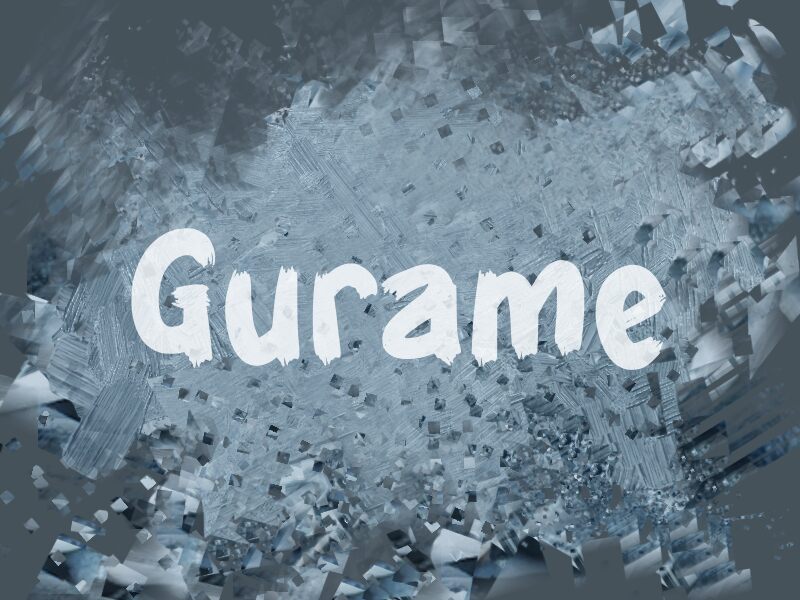
Gurame
Gurame, designed by wep, captures attention with its bold, brush-stroke style that exudes energy and creativity. The dynamic strokes create a sense of movement, adding an element of liveliness and personality to any design. Its strikingly thick lines are perfect for making a bold statement in headlines, posters, or logos.
Ideal for projects seeking a handcrafted feel, Gurame thrives where authenticity and expressiveness are paramount. It's equally at home in artistic portfolios as it is in branding for creative ventures. Whether you’re aiming to evoke the raw beauty of street art or the refined touch of personalized craftsmanship, Gurame brings an unmistakable flair that ensures your message won’t be overlooked. This font promises not just visibility but an unforgettable visual impact.